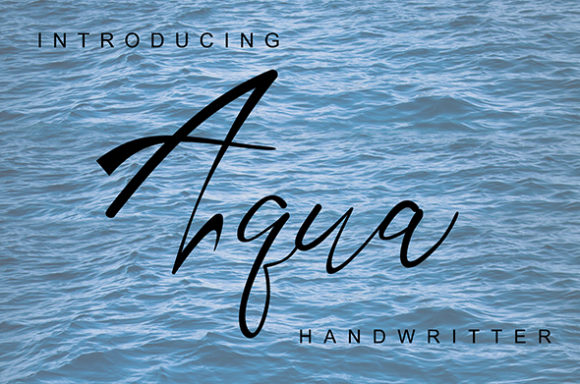
Discover the enchanting Aqua Font, an exquisite script typeface that captures the spirit of timeless elegance. Immerse yourself in its graceful curves and fluid strokes, meticulously crafted to evoke a sense of warmth and invitation. With each letterform blooming like a delicate flower, Aqua Font transforms your designs into a captivating visual symphony.
Elevate your catalog designs to new heights with the alluring charm of Aqua Font. Its sophisticated character adds a touch of timeless sophistication to your creations, captivating the attention of customers and leaving a lasting impression. Allow Aqua Font to be your creative muse, guiding you effortlessly through the world of catalog design excellence.
Whether you're showcasing the latest fashion collections, mouthwatering culinary delights, or exquisite home décor, Aqua Font seamlessly adapts to your vision. Its versatility knows no bounds, making it the perfect choice for a wide range of design projects. Let your imagination soar as you explore the limitless possibilities that Aqua Font presents.
Step into a world where typography meets artistry, where every word becomes a masterpiece. Aqua Font is not just a font; it's an invitation to unleash your creativity and create designs that speak volumes. Its friendly and inviting nature makes it the perfect choice for personal projects, adding a touch of warmth and charm to your creations.
With Aqua Font at your fingertips, the possibilities are endless. Its elegant curves and flowing strokes will add a touch of magic to your designs, leaving a lasting impression on all who encounter them. Experience the transformative power of Aqua Font today and unlock the true potential of your creative vision.